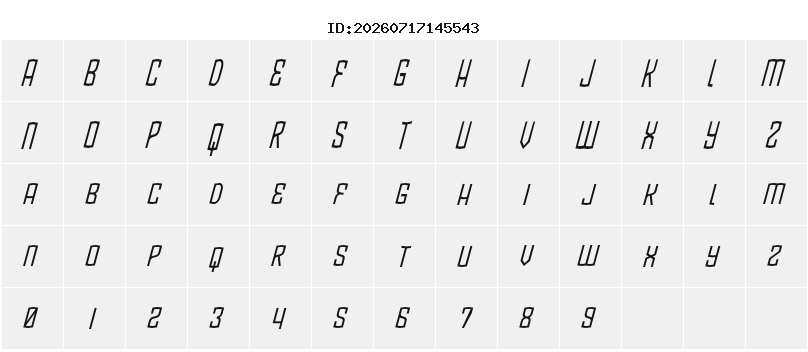
• Font Name: BlamDude BB
• Full Font Name: BlamDude BB Italic
About BlamDude BB.ttf
BlamDude BB.ttf is a modern, elegant sans-serif font designed for ultimate readability and visual harmony. Perfect for branding, headlines, web design, and print materials.